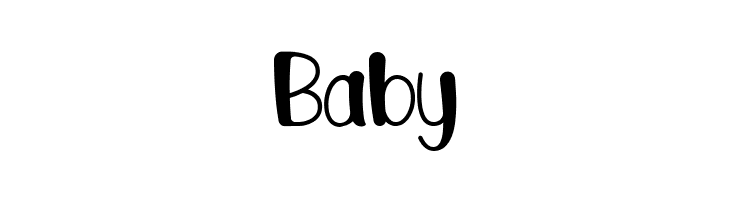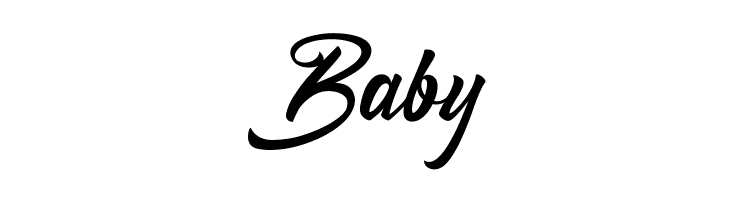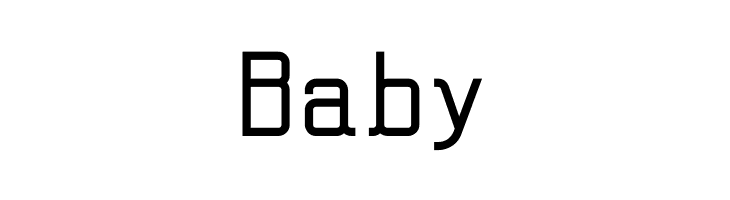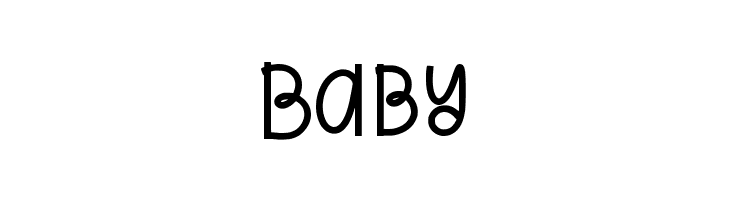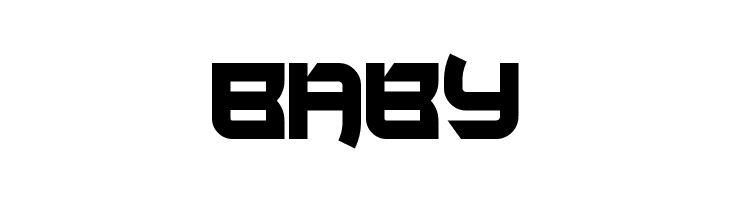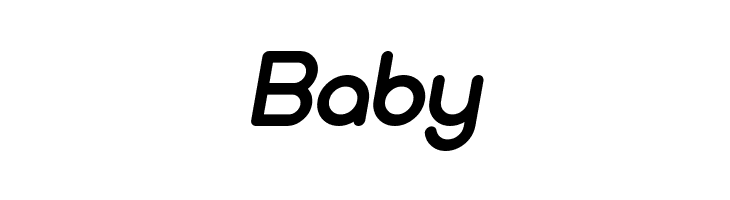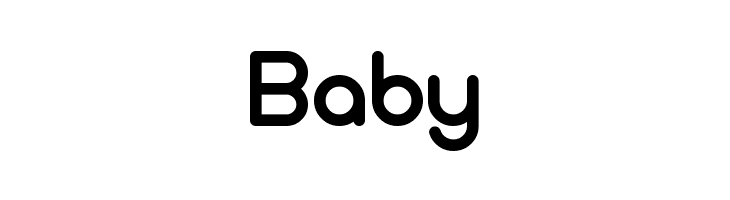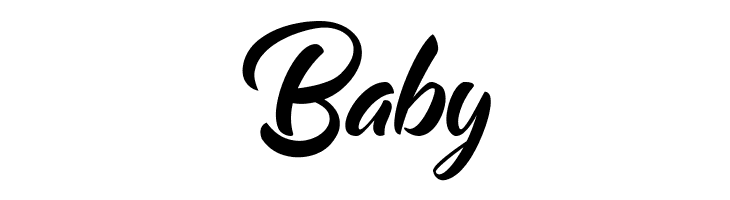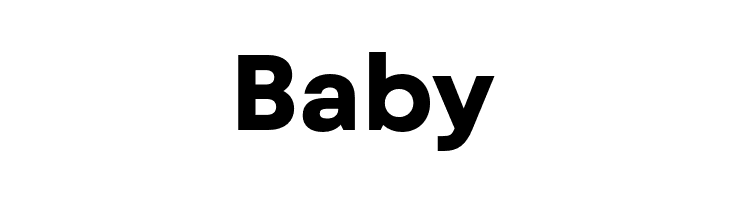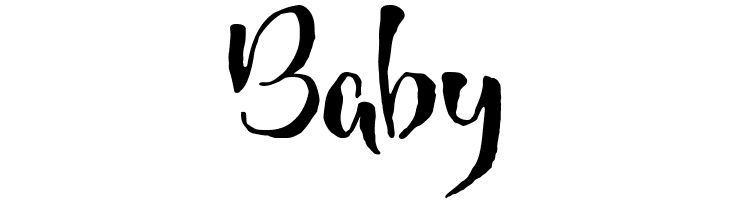
A flowing, elegant script font with interconnected characters and medium contrast.
A bold, artistic font with striking curves and sharp edges, ideal for decorative use.
Bold, rounded sans-serif with a playful, bubbly style.
A playful, bold script font with a handwritten feel.
An elegant, cursive font with flowing, artistic strokes.
A playful, hand-drawn font with bold, rounded uppercase and flowing lowercase letters.
A dynamic, brush-style font with expressive strokes and artistic flair.
A dynamic and elegant script font with high contrast and flowing letterforms.
A playful, rounded font with smooth curves and a friendly appearance.
A bold, rounded font with a modern and friendly style.
A modern, playful italic font with smooth, rounded edges.
An elegant script font with flowing lines and intricate swashes.
A playful, bold font with rounded, hand-drawn characteristics.
A graceful script font with flowing, connected letters and a sophisticated style.
A modern, monospaced font ideal for coding and technical documents.
A clean, minimalist font with thin, uniform lines and a modern, elegant appearance.
A clean, minimalist font with thin lines and geometric influence.
A bold, narrow typeface with a modern and impactful style.
A bold, geometric font with a futuristic and digital aesthetic.
A flowing, elegant script font with seamless cursive connections.
A playful, handwritten font with a casual and flowing style.
A bold, modern sans-serif font with clean lines and rounded edges.
A bold, modern sans-serif font with a clean and impactful style.
A clean, minimalist font with thin strokes and balanced spacing.
A bold, modern sans-serif font with geometric shapes and clean lines.
A bold, decorative font with dramatic curves and artistic flair.
A bold, elegant script font with smooth curves and a sophisticated style.
Elegant cursive script font with a handwritten style.
An ornate Gothic font with intricate details and historical flair.
A dynamic and expressive script font with fluid, flowing letterforms and high contrast.
A playful and quirky font with rounded and angular elements.
A playful handwritten font with flowing, connected letterforms.
A playful, bold font with rounded edges and whimsical character shapes.
A playful, rounded font with a whimsical and friendly style.